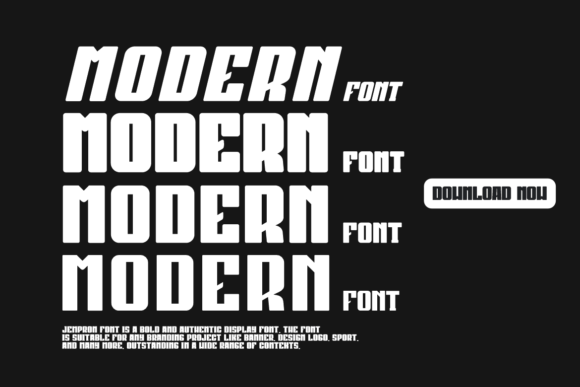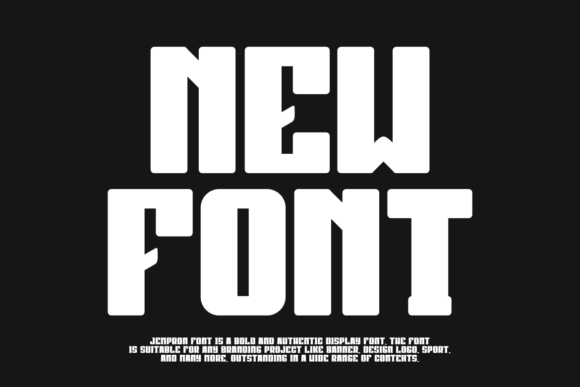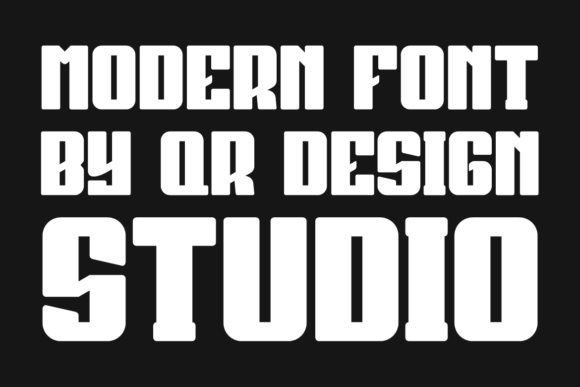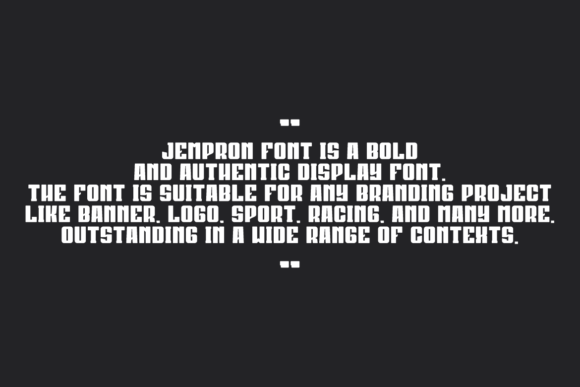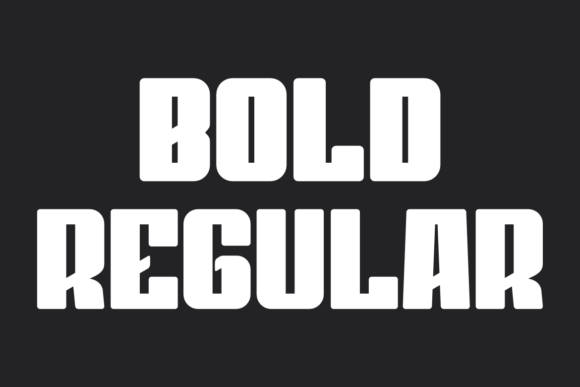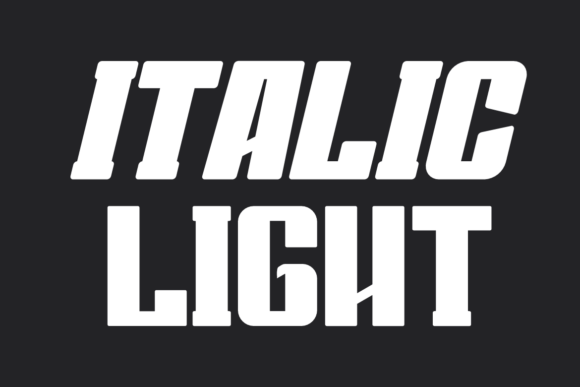
Introduction to Jempron Font
As a designer, you’ve probably found yourself in the midst of a creative frenzy, frantically searching for the perfect font to elevate your project. The cursor blinks on your screen, taunting you as you scroll through endless options. But what if you stumbled upon a font that not only caught your eye but also left a lasting impression? Welcome to the world of Jempron Font, a bold and dynamic display font designed to make a statement.
With its striking curves and strong lines, Jempron Font is the perfect addition to any high-quality design resource. Whether you’re working on a logo, headline, or creative project, this font is sure to turn heads. And the best part? It’s available for free download, complete with a transparent background that lets your design shine.
Key Features of Jempron Font
- High-quality, vector-based font design, ideal for creative projects and design resources.
- Features a unique, modern design style that can add a touch of sophistication to any creative project.
Honest Review: Jempron Font
As a designer, I’m always on the lookout for high quality design resources that can help bring my creative projects to life. Recently, I stumbled upon the Jempron Font, and I must say, it’s been a great addition to my design arsenal.
What works well: ✨ The Jempron Font is available for free download, making it an excellent resource for designers on a budget. The font is also highly customizable, allowing me to experiment with different styles and designs. The transparent background feature is a huge plus, as it makes it easy to integrate the font into my designs without any distractions.
⚠️ One limitation I’ve noticed is that the font is only available in a limited number of styles, which can make it less versatile than other fonts. However, the quality of the font makes up for this limitation, and I’ve been able to create some amazing designs with it.
Overall, I’m really impressed with the Jempron Font. It’s a great resource for designers who are looking for a high-quality, free font that can help them bring their creative projects to life. I would definitely recommend it to anyone looking for a reliable design resource.
Jempron Font is commonly used in various design projects, including logos, graphics, presentations, and documents. Its versatility and high quality make it a popular choice among designers and creatives. Whether you’re working on a personal or professional project, Jempron Font is a valuable design resource that can help you achieve your design goals.